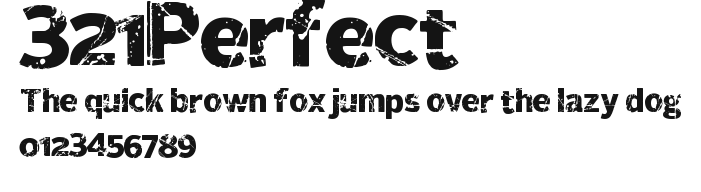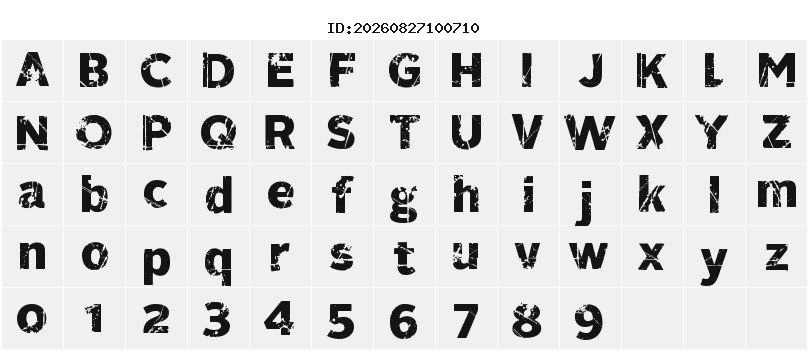
321Perfect Preview
• Font Name: 321Perfect
• Designer: Kenny Redman
About 321Perfect.ttf
321Perfect.ttf is a modern, elegant sans-serif font designed for ultimate readability and visual harmony. Perfect for branding, headlines, web design, and print materials.